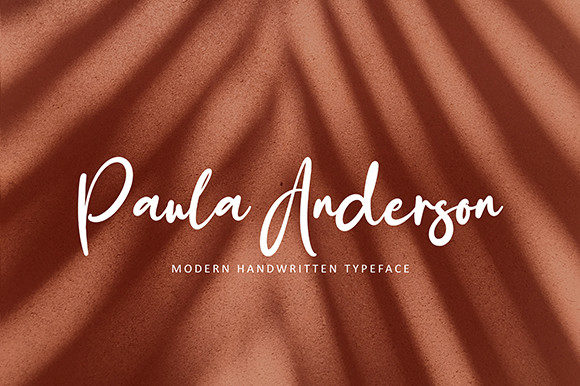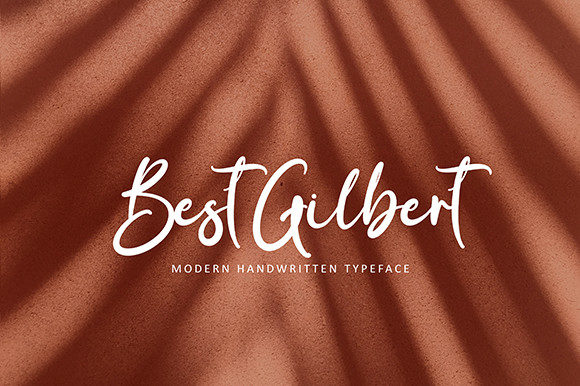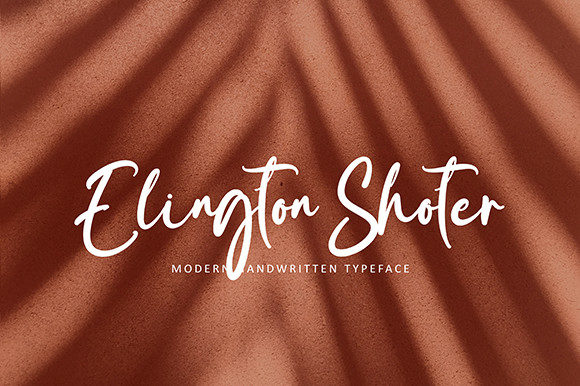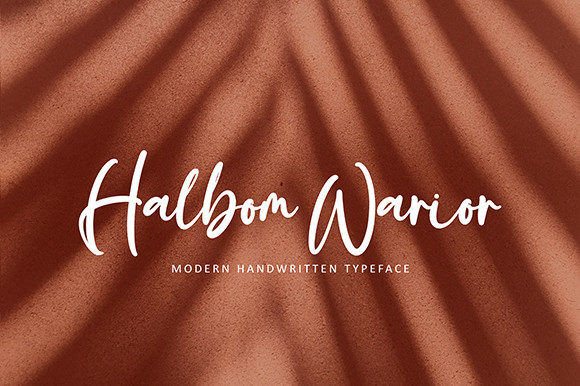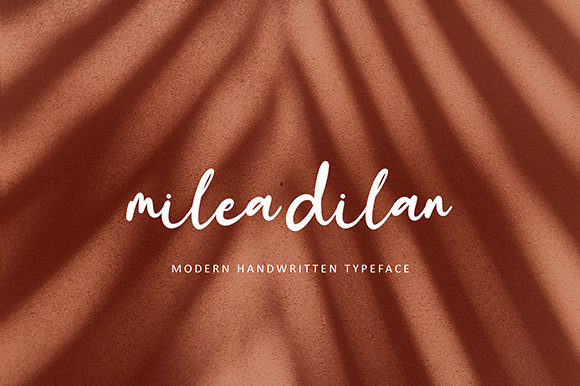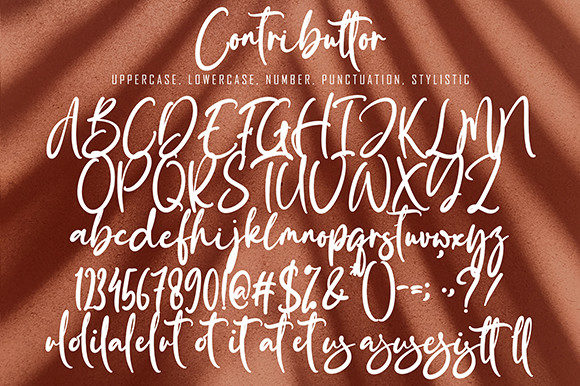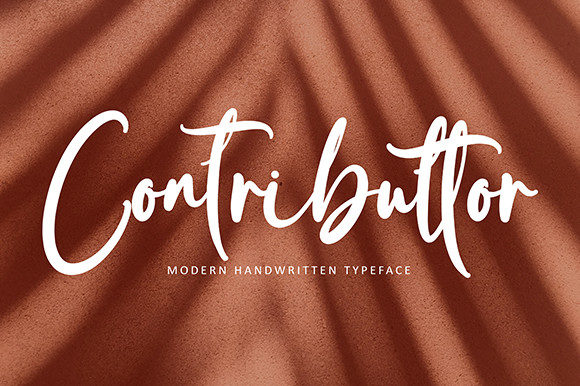
Introducing Conntributor Font: The Perfect Handwritten Touch for Your Designs
Are you a designer or crafter looking for a unique and stylish font to add a personal touch to your projects? Look no further than Conntributor Font, a casual and relaxed handwritten font that’s perfect for a variety of designs. In this article, we’ll explore the features and benefits of Conntributor Font and show you how it can elevate your work.
A Versatile Font for Various Designs
Conntributor Font is a versatile typeface that can be used for a wide range of designs, including:
- Wedding invitations: Add a romantic and whimsical touch to your wedding stationery with Conntributor Font.
- Thank you cards: Express your gratitude with a personal and heartfelt message in Conntributor Font.
- Quotes: Make your quotes stand out with a beautiful and elegant handwritten font.
- Greeting cards: Create stunning greeting cards for special occasions like birthdays, anniversaries, and holidays.
- Logos: Use Conntributor Font to create a unique and memorable logo for your brand.
- Business cards: Add a touch of personality to your business cards with Conntributor Font.
The Benefits of Conntributor Font
So, what makes Conntributor Font so special? Here are just a few benefits of using this amazing font:
- Casual and relaxed: Conntributor Font has a laid-back and informal feel that’s perfect for designs that need a personal touch.
- Handwritten look: The font’s handwritten appearance adds a touch of warmth and elegance to your designs.
- PUA encoded: Conntributor Font is PUA (Private Use Area) encoded, which means you can access all of the glyphs and swashes with ease.
PUA encoding is a system that allows font creators to include additional characters and glyphs in their fonts. In the case of Conntributor Font, PUA encoding means that you can access a wide range of swashes and glyphs to add extra flair to your designs. This feature makes it easy to create unique and eye-catching designs that stand out from the crowd.
Tips for Using Conntributor Font
Here are a few tips for getting the most out of Conntributor Font:
- Experiment with different sizes: Conntributor Font looks great in a variety of sizes, from large headings to small body text.
- Mix and match: Combine Conntributor Font with other fonts to create a unique and interesting design.
- Use the swashes: Take advantage of the PUA encoding and use the swashes and glyphs to add extra personality to your designs.
Conntributor Font is a beautiful and versatile handwritten font that’s perfect for designers and crafters looking to add a personal touch to their projects. With its casual and relaxed appearance, PUA encoding, and ease of use, Conntributor Font is an excellent choice for a wide range of designs. Whether you’re creating wedding invitations, greeting cards, or logos, Conntributor Font is sure to impress. So why wait? Download Conntributor Font today and start creating stunning designs that showcase your personality and style.
- What is Conntributor Font?
- Conntributor Font is a casual and relaxed handwritten font that’s perfect for designs that need a personal touch.
- What is PUA encoding?
- PUA encoding is a system that allows font creators to include additional characters and glyphs in their fonts.